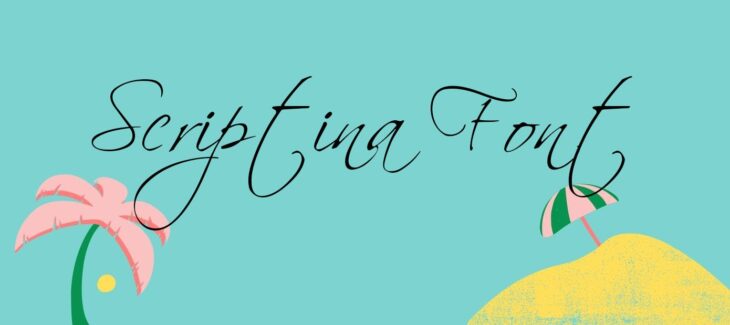
Here we are introducing you to a typeface that is the type of Calligraphy typeface font family. This font is designed by a foundry that has also taken participation in creating many famous script fonts and this typeface is also one of them named Apostrophic Labs.
It is comprised of more than 200 glyphs and more than 200 defined personalities with 15 general punctuations and also includes mathematical operators. It is comprised of a single style that can support multi-languages. This font has dual uppercase and lowercase alphabets including numbers and symbols that increase the demand and usage of this font.
Who Can Use Scriptina Font?
This textured style is used to produce a wide range of graphics, including storefronts, covers, logos, and T-shirt designs. Because of its slim appearance, it’s also great for homeware designs, branding projects, and adding gorgeous overlay text to any photo design. This font is also suitable for modern projects and websites.
This typeface is also used to make a number of other unique and intriguing projects. It is also well-known among designers due to its formal and appealing text features. As a result, many designers use this typeface in a variety of projects and ideas.
Many businesses using this typeface to identify their brands and projects. This typeface has a formal and beautiful sense about it, and it writes gracefully. As a result, several fashion brands use this typeface in their publications.
How Does Scriptina Font Family Appear?